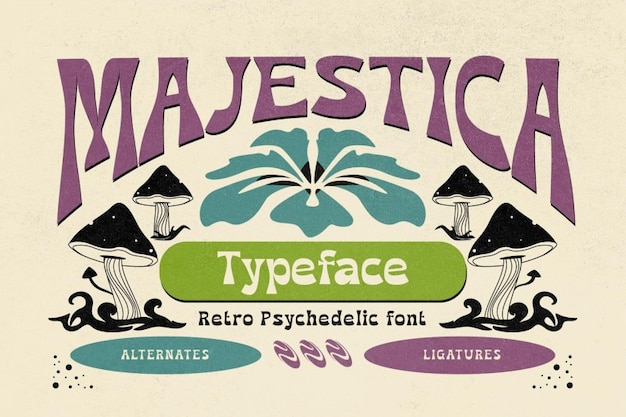
Majestica
Majestica Font
Drizy Studio
It is a font that takes you on a trip back in time to the psychedelic and groovy era of the '60s and '70s. Its retro vibes and vintage charm make it perfect for projects that want to capture the essence of that colorful and trippy period. Whether you're designing posters, album covers, or branding materials, "Majestica" will infuse your text with a dose of nostalgia and a whole lot of groovy flair. It's like a blast from the past for your design projects, giving them that authentic vintage touch.